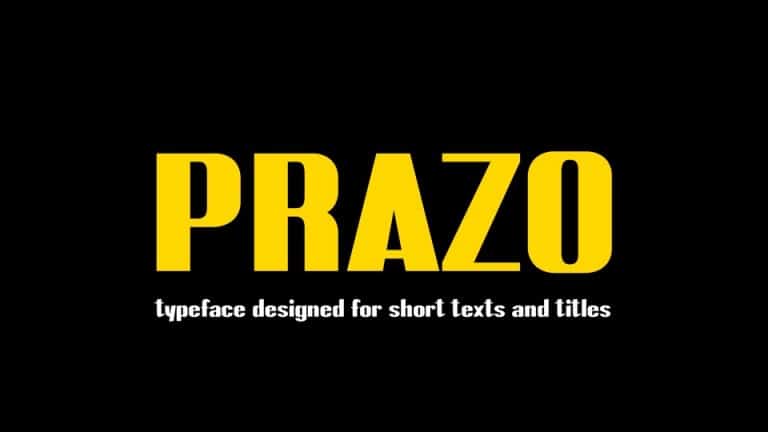
Prazo Sans Serif Font
Prazo Sans Serif Font is a modern bold sans serif font.You can use sans serif font feature in many areas easily. This font offers a wide variety of styles to help you discover the best mood for your projects, from body text to large titles, from classic styles to modern and bold styles. With its powerful look Prazo is perfect to make a strong impression in print, headlines, video, and social media.